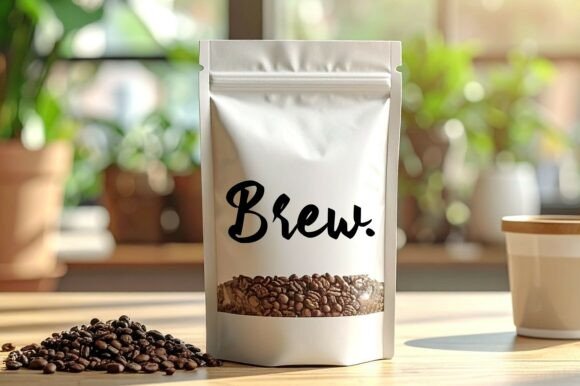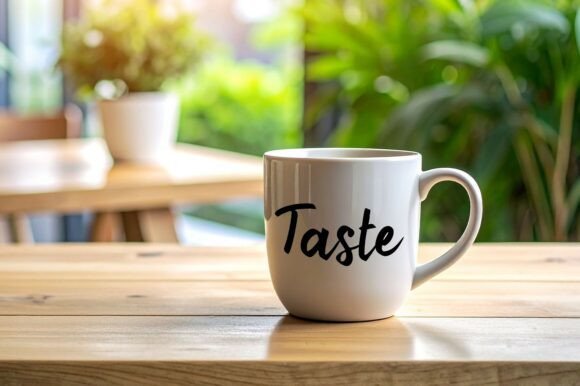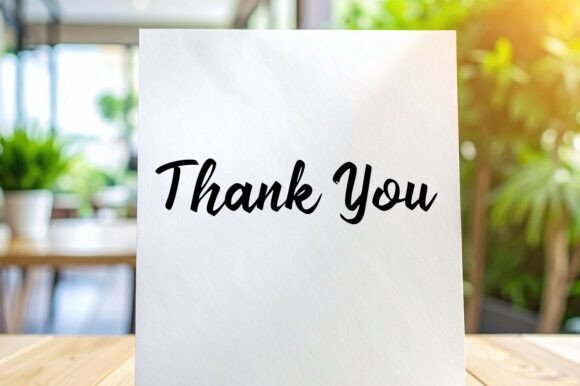
Introducing Bikin Coffee Font: The Cozy Warmth of Handcrafted Typography
Are you tired of using generic fonts that lack personality and warmth? Look no further than the Bikin Coffee font, a skillfully designed script font that embodies the comforting familiarity of your favorite cup of joe. With its flowing linework and casual hand-drawn appearance, this font radiates a charming and authentic vibe that’s perfect for adding a touch of coziness to your designs.
The Inspiration Behind Bikin Coffee
Bikin Coffee is more than just a font – it’s an experience. Imagine walking into a quaint neighborhood café, surrounded by the aroma of freshly brewed coffee and the warmth of a crackling fireplace. The font’s design is inspired by the handwritten menus you’d find in such a café, with subtle unevenness and natural connections between characters that give it a distinctly modern yet intimate character.
What Makes Bikin Coffee Unique
So, what sets Bikin Coffee apart from other fonts? Here are a few key features that make it an ideal choice for designers and crafters:
- Handcrafted feel: Bikin Coffee has a distinctly handcrafted feel that adds a touch of warmth and personality to your designs.
- Flowing linework: The font’s flowing linework and casual hand-drawn appearance give it a charming and authentic vibe.
- Subtle unevenness: The subtle unevenness and natural connections between characters add to the font’s unique character.
- Professional implementation: Bikin Coffee provides all basic punctuation for seamless and professional implementation in various design scenarios.
Perfect for Coffee Houses, Bakeries, and Food-Related Brands
Bikin Coffee is the perfect font for coffee houses, bakeries, food-related brands, craft makers, or any creative individual looking to infuse their creations with a jovial and imaginative spark. Whether you’re designing a logo, menu, or packaging, this font is sure to add a touch of warmth and personality to your designs.
Why Designers and Crafters Love Bikin Coffee
Designers and crafters love Bikin Coffee for its unique blend of modernity and intimacy. Here are just a few reasons why:
- Easy to read: Despite its handcrafted feel, Bikin Coffee is surprisingly easy to read, making it perfect for body text and headlines.
- Versatile: The font’s versatility makes it suitable for a wide range of design applications, from branding and packaging to web design and social media.
- Authentic feel: Bikin Coffee’s authentic feel adds a touch of warmth and personality to your designs, setting them apart from generic fonts.
How to Use Bikin Coffee in Your Designs
Using Bikin Coffee in your designs is easy. Here are a few tips to get you started:
- Pair it with other fonts: Bikin Coffee pairs well with other fonts, especially sans-serif fonts like Arial or Helvetica.
- Experiment with colors: The font’s warm and cozy feel makes it perfect for earthy color schemes, but feel free to experiment with other colors to find the perfect combination.
- Use it for headlines and body text: Bikin Coffee is suitable for both headlines and body text, making it a great choice for designers who want to add a touch of personality to their designs.
In conclusion, Bikin Coffee is a unique and versatile font that’s perfect for designers and crafters looking to add a touch of warmth and personality to their designs. With its handcrafted feel, flowing linework, and subtle unevenness, this font is sure to bring a smile to your customers’ faces. So why wait? Download Bikin Coffee today and start creating designs that are as cozy as a cup of freshly brewed coffee.